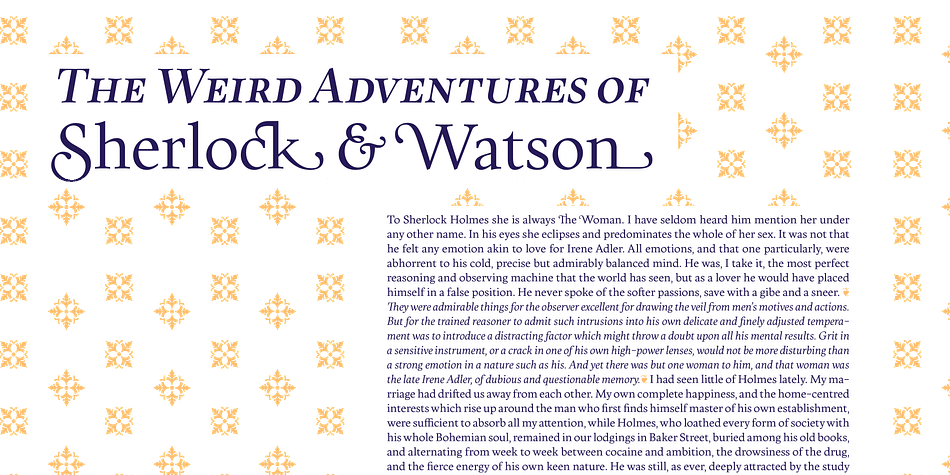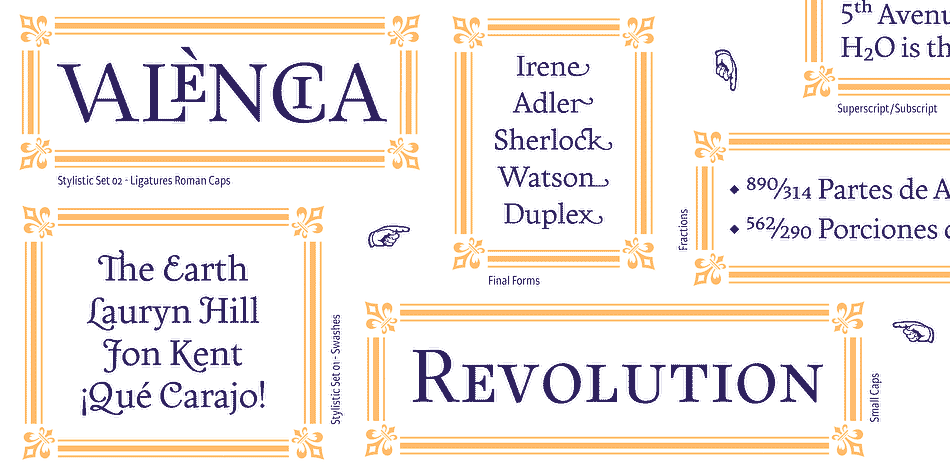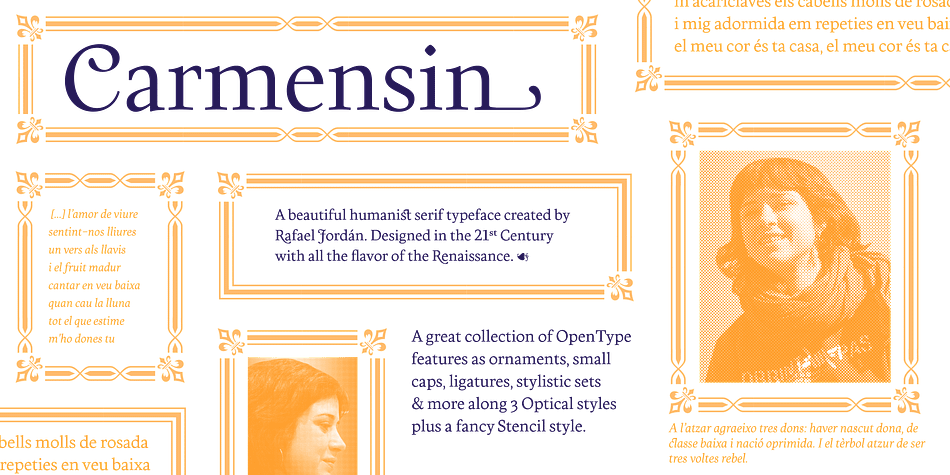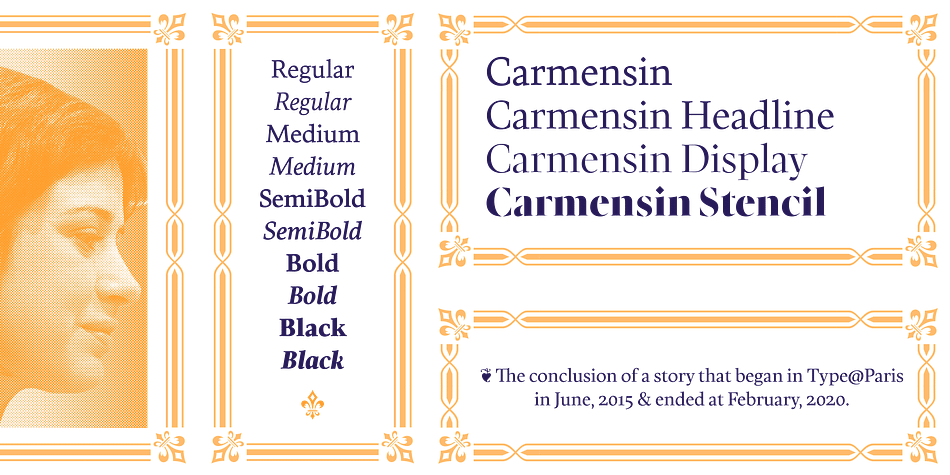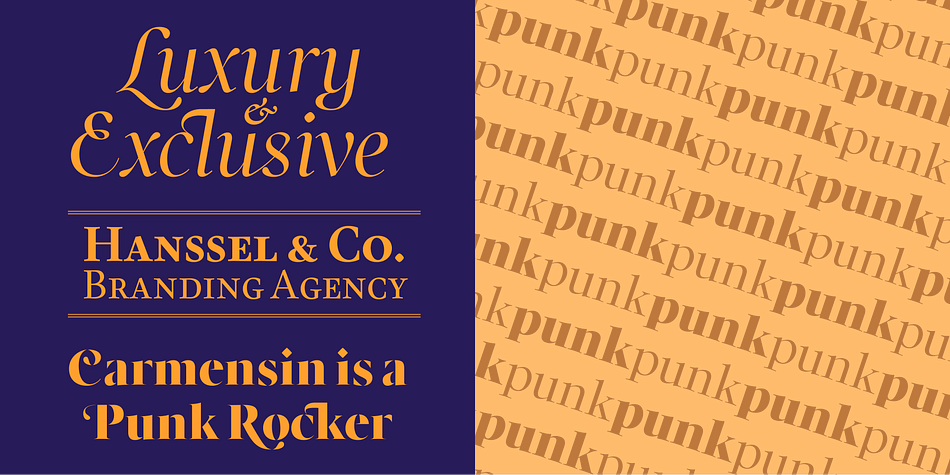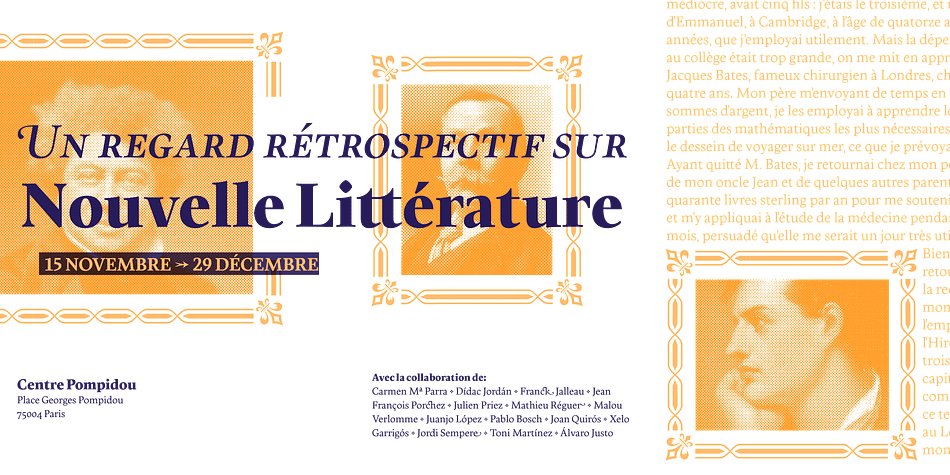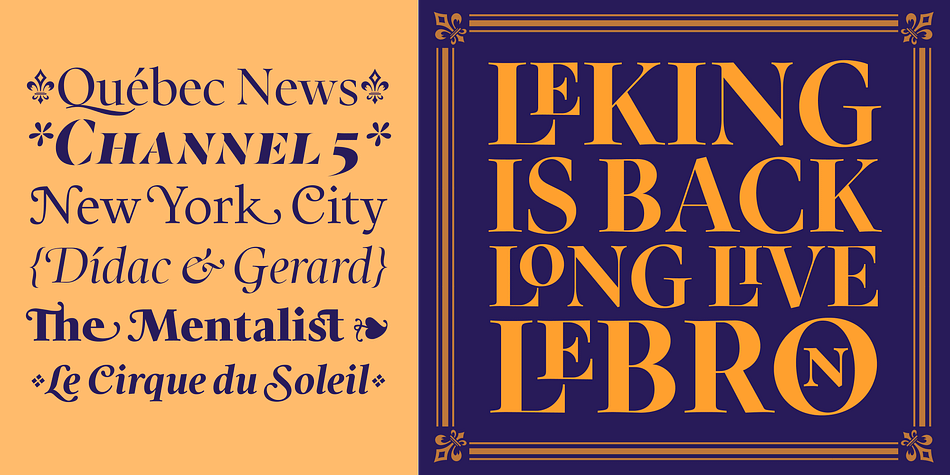
Designed by Rafael Jordan, Carmensin is a serif and stencil font family. This typeface has thirty-two styles and was published by Rafael Jordan.
Carmensin is a beautiful humanist serif typeface created by Rafael Jordán. Designed in the 21st Century with all the flavor of the Renaissance. The conclusion of a story that began in Type@Paris program in June, 2015 & ended at February, 2020.
Inspired by historical models, its classic conventional appearance with small details, smooth curves, large x-height and open counters made of Carmensin a great, efficient and solid typeface for long text settings. Also, its bigger sizes styles show the beautiful shapes and contrast, exhibiting its exuberance.
Carmensin has a great collection of OpenType features that will satisfy any typographic necessity as ornaments, ligatures, stylistic sets, small caps, automatic fractions and more options along 3 optical styles (Text, Headline and Display) plus a fancy Stencil style. With an extensive Latin character set, Carmensin covers a wide amount of Latin-based languages, including Latin Plus encoding.